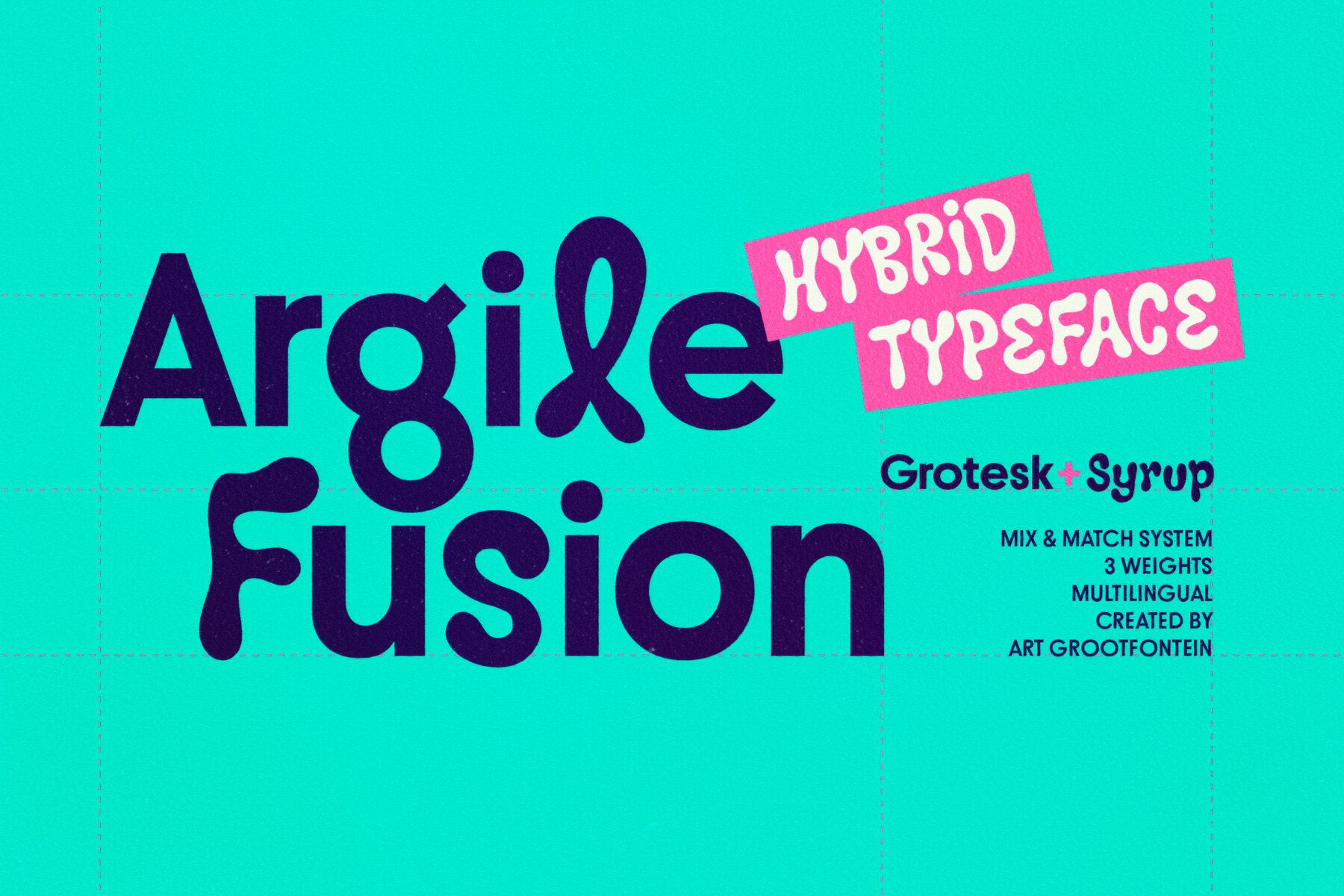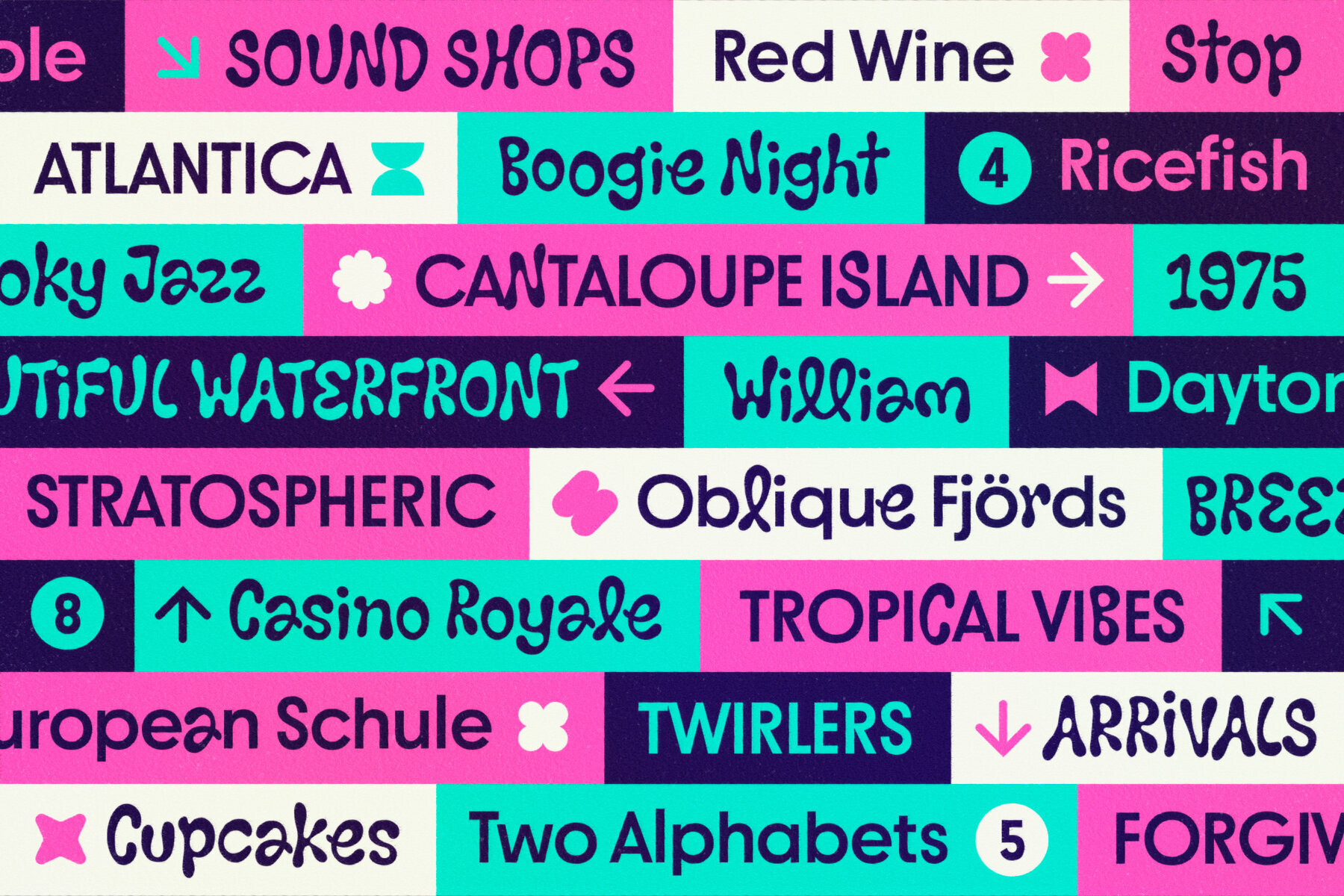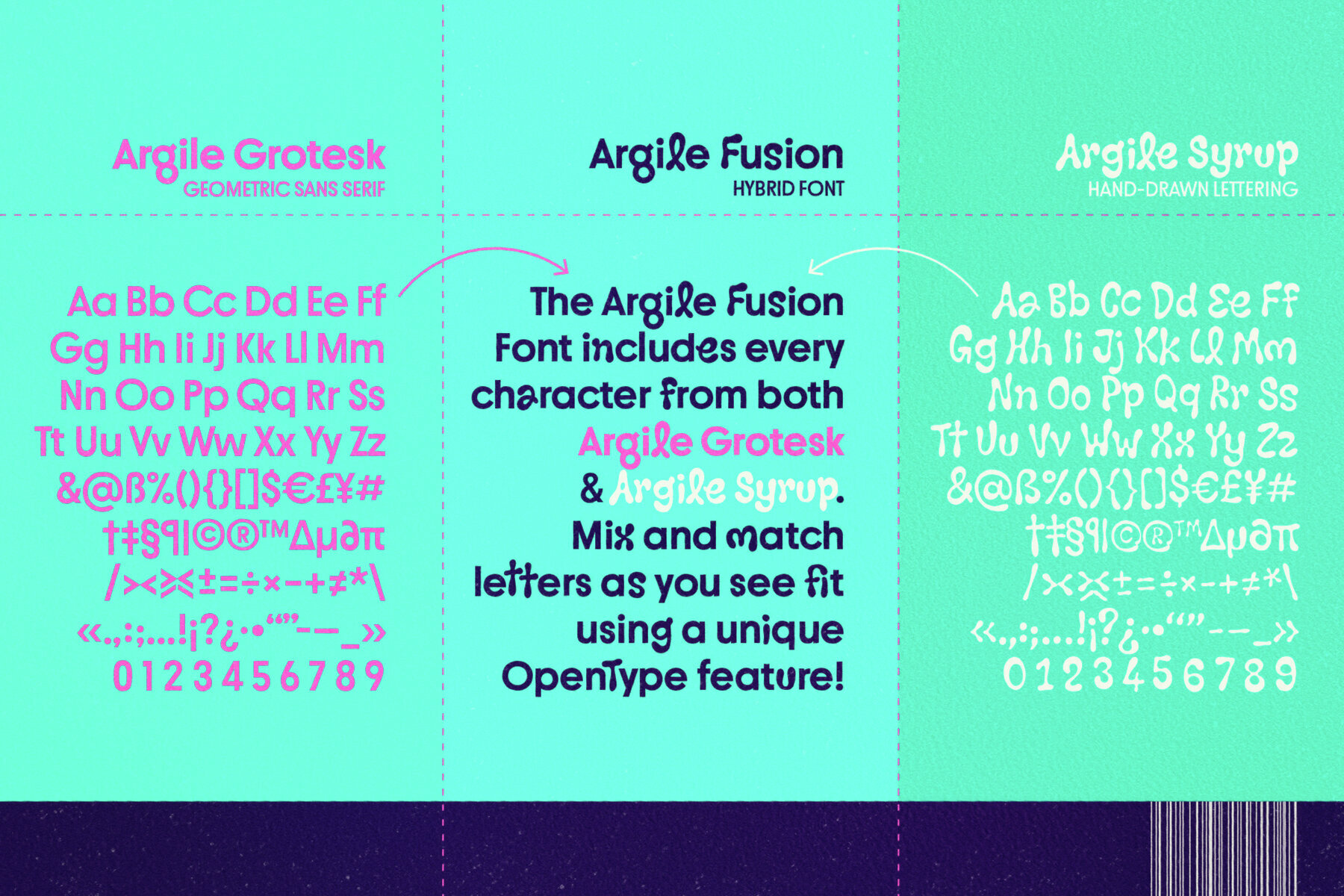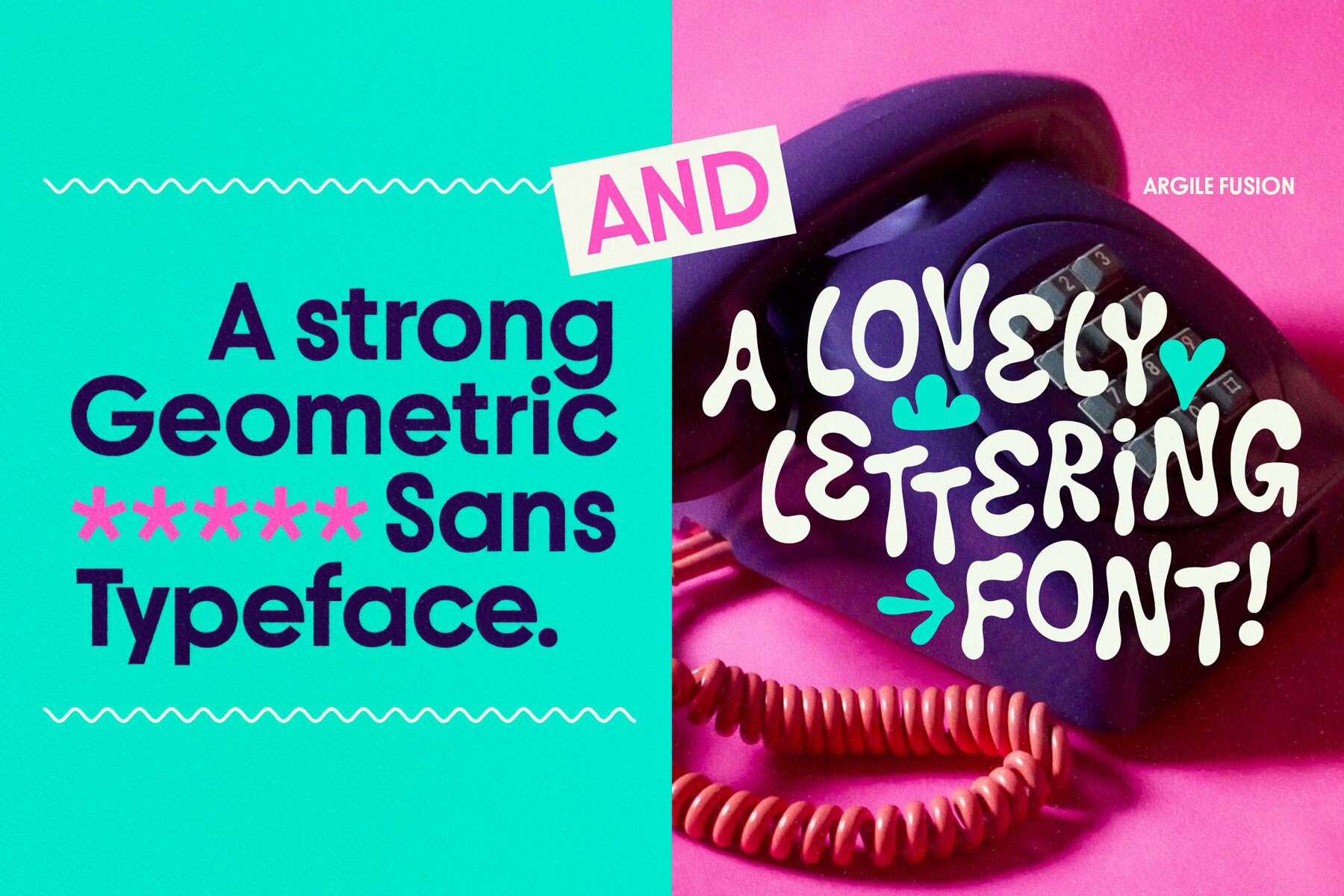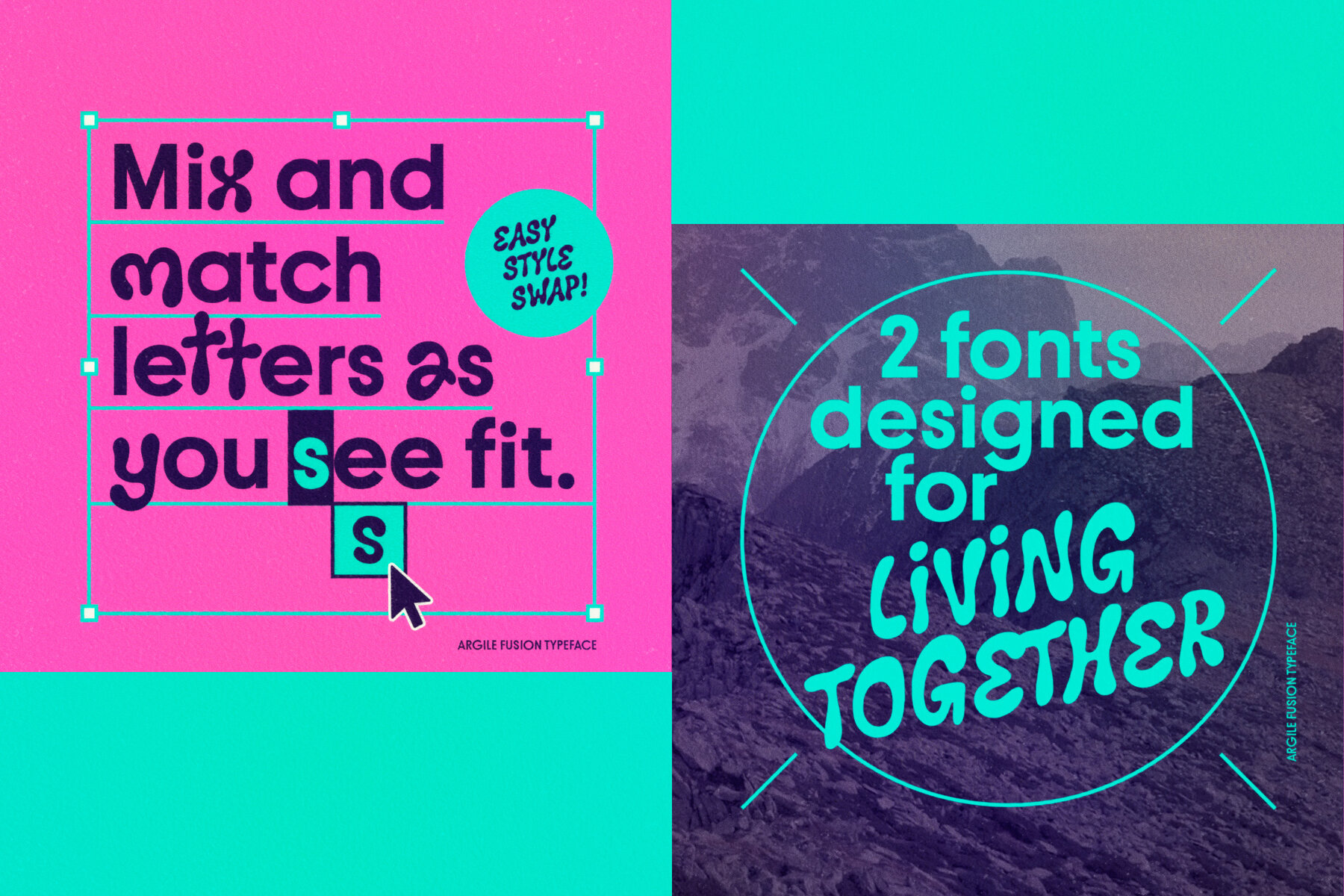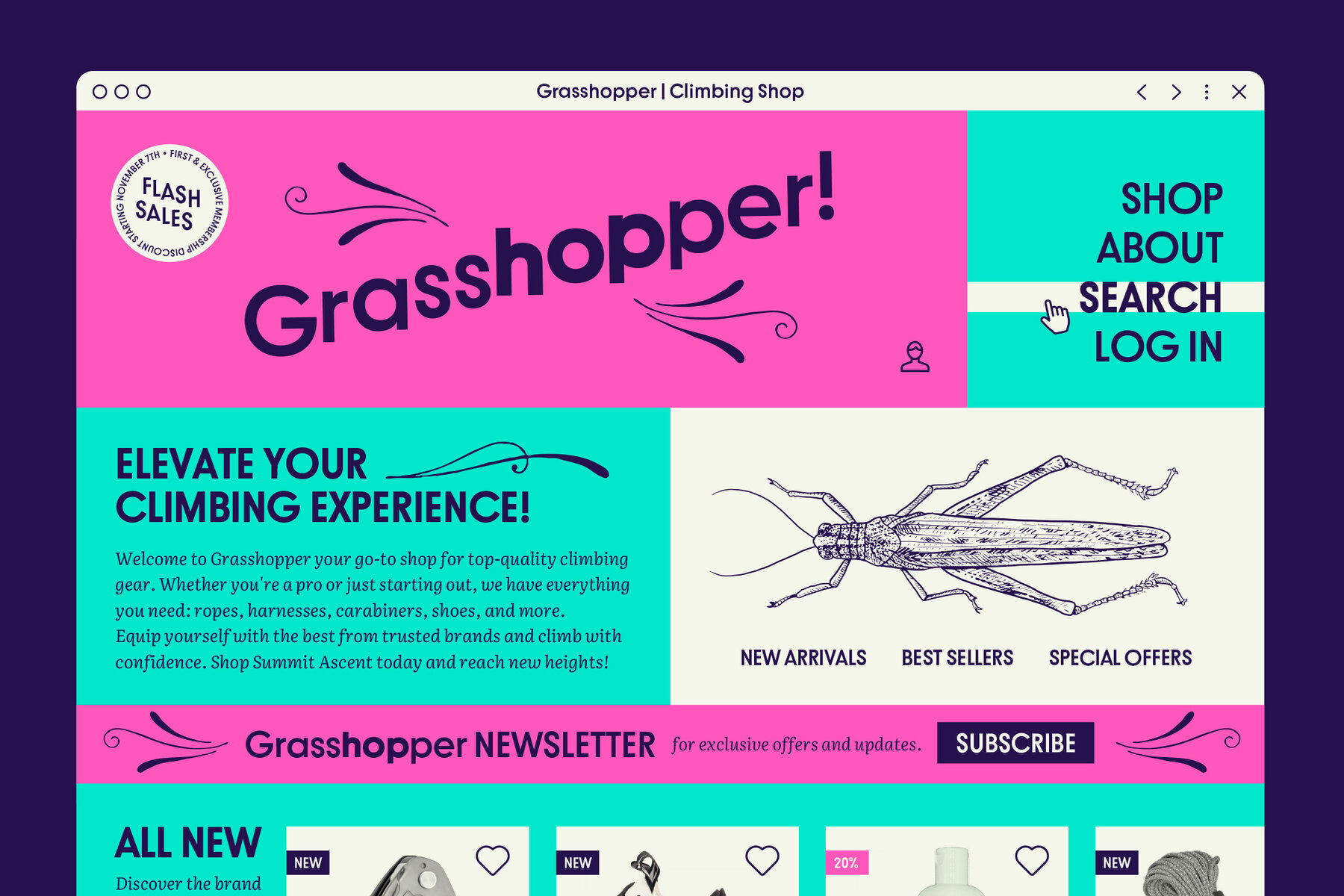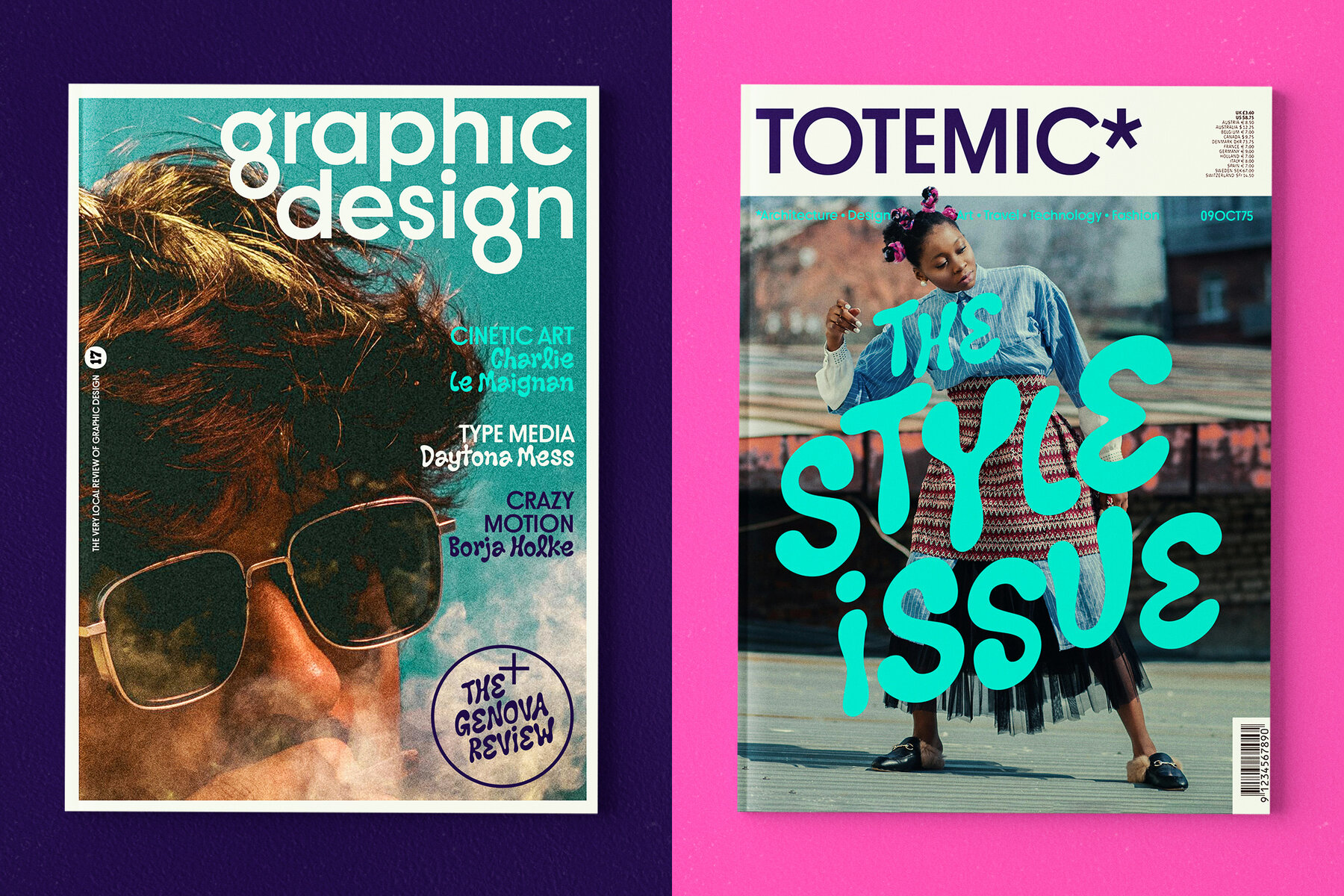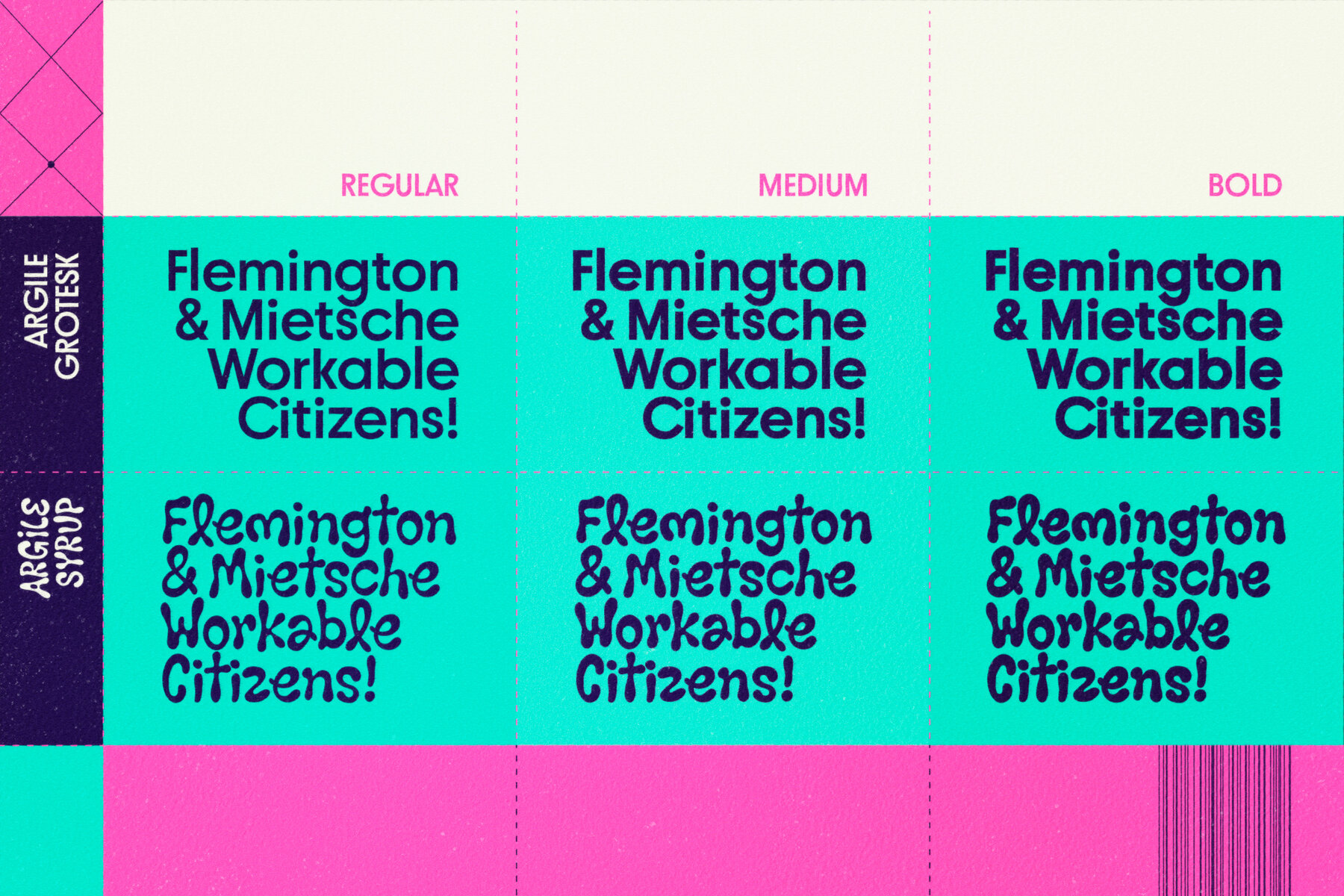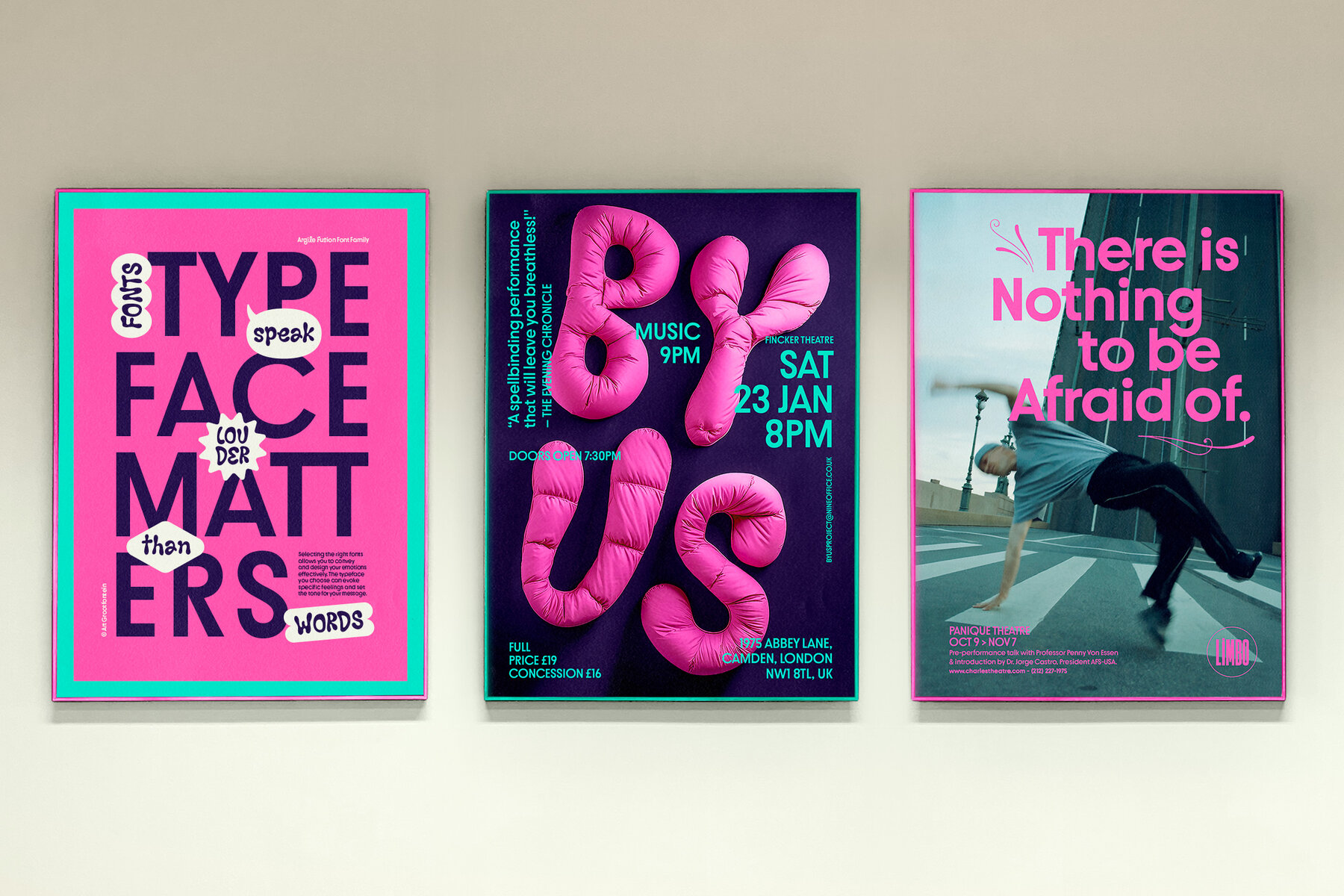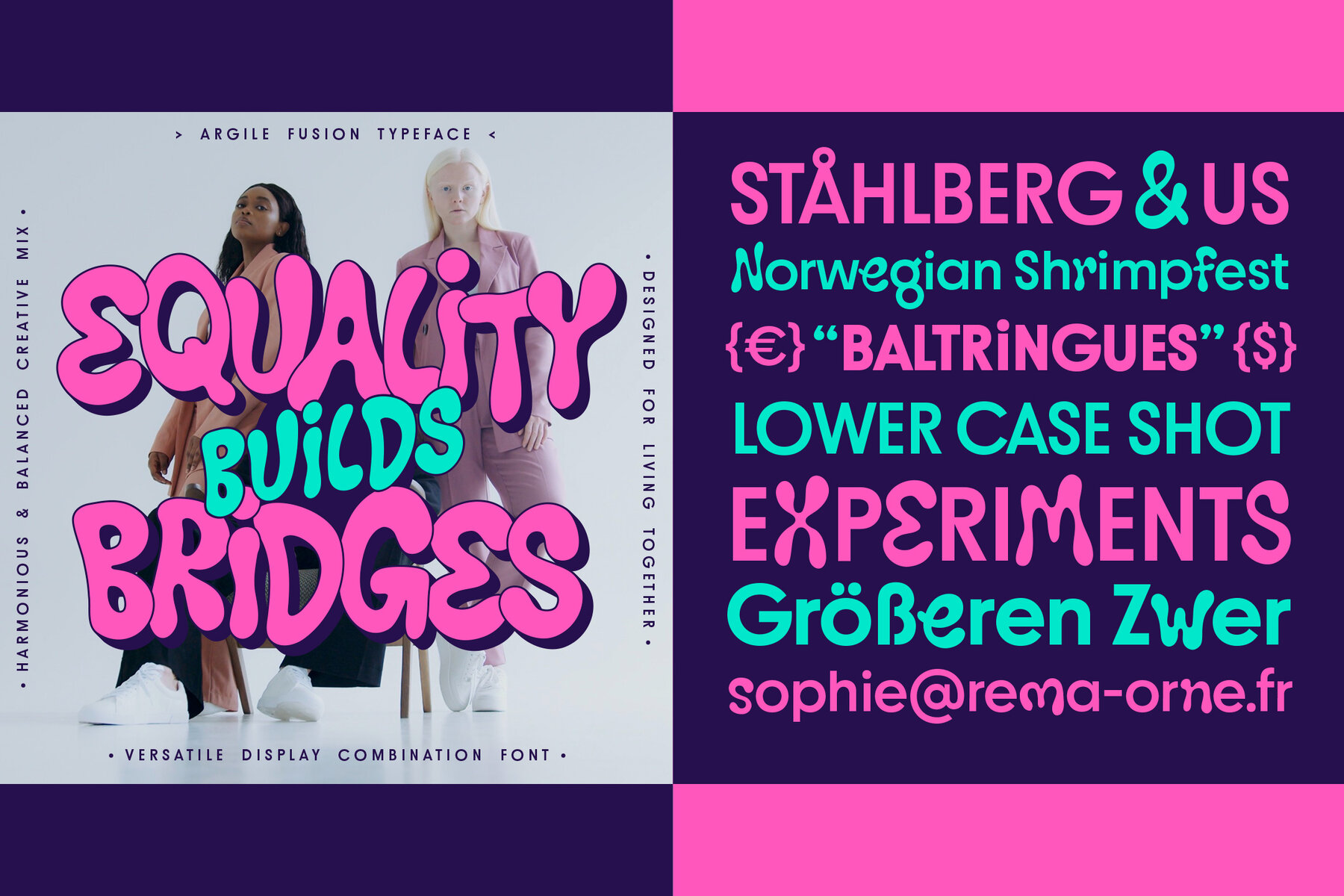
Argile Fusion Font
Discover a pioneering approach to typographic composition that redefines design possibilities! Argile Fusion Two fonts in one! Argile Fusion is a font duo blending the strength of a geometric sans serif with the expressive energy of flowing hand-drawn lettering. These fonts have been designed to work together seamlessly, allowing you to mix and match letters as you see fit using the OpenType alternate feature of this unique hybrid font! The font combination provides a stylish and classy visual, giving your designs a strong sense of identity and personality. Each font comes in three weights: The Argile Family is the perfect choice for editorial design in magazines and catalogs. It is also well-suited for creating titles and short texts on book covers and large-format publications, or as part of a corporate identity, logos, packaging, and labels. More than 70 supported languages English, Spanish, French, German, Swedish, Italian, Swiss, Finnish, Portuguese, Icelandic, Norwegian, Dutch, Afrikaans, Albanian, Asu, Basque, Bemba, Bena, Breton, Catalan, Chiga, Cornish, Danish, Estonian, Faroese, Filipino, Friulian, Galician, Gusii, Indonesian, Irish, Kabuverdianu, Kalenjin, Kinyarwanda, Luo, Luxembourgish, Luyia, Machame, Makhuwa-Meetto, Makonde, Malagasy, Manx, Morisyen, North Ndebele, Norwegian Bokmål, Norwegian Nynorsk, Nyankole, Oromo, Quechua, Romansh, Rombo, Rundi, Rwa, Samburu, Sango, Sangu, Scottish Gaelic, Sena, Shambala, Shona, Soga, Somali, Swahili, Swedish, Taita, Teso, Uzbek (Latin), Volapük, Vunjo, Zulu
Argile Fusion is an innovative pairing of two distinct fonts: a sleek, geometric sans and an expressive, hand-drawn lettering. Designed to coexist in perfect synergy, these two fonts can be seamlessly mixed and matched to create stunning, contemporary designs. Whether you aim for modern minimalism or vibrant creativity, Argile Fusion empowers your projects with a dynamic balance of precision and personality! Embrace the future of typography with Argile Fusion, where elegance meets artistic flair.